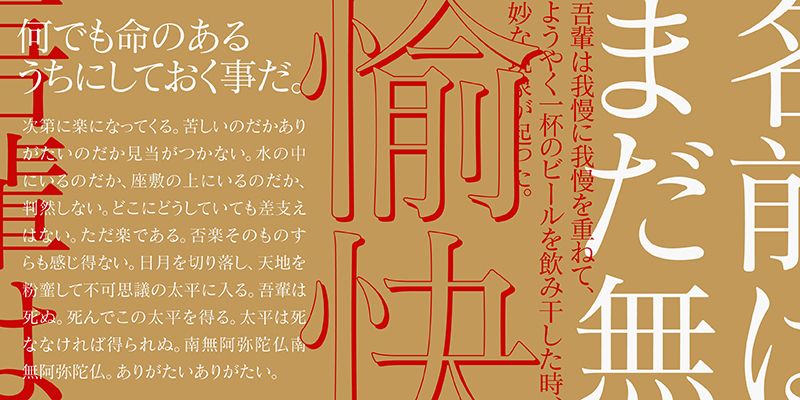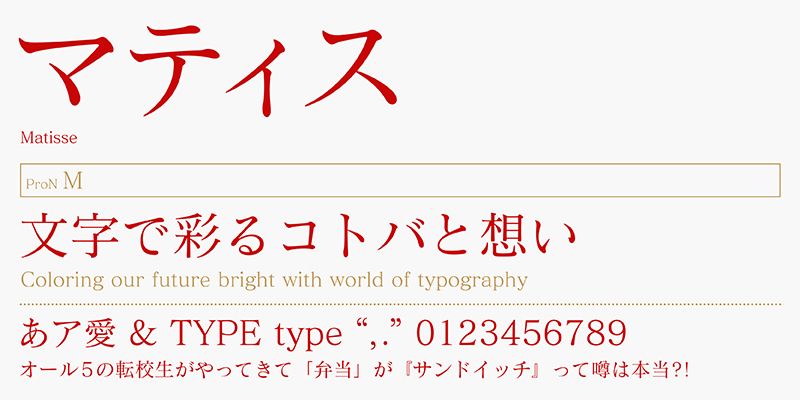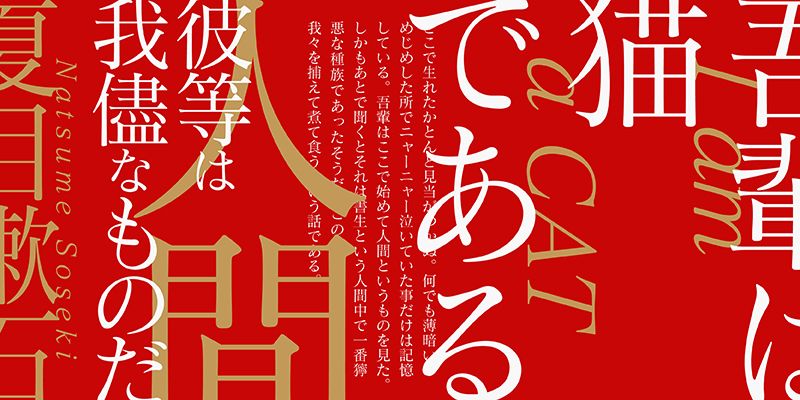
FOT-Matisse ProN is a Mincho-style typeface designed from basic principles of type design, but with a sharpness and elegance produced by its smooth and soft curves. Any texts set in this typeface will have maximum readability. This family has six weights with a remarkably thin weight “L” compared with similar fonts from other type foundries.